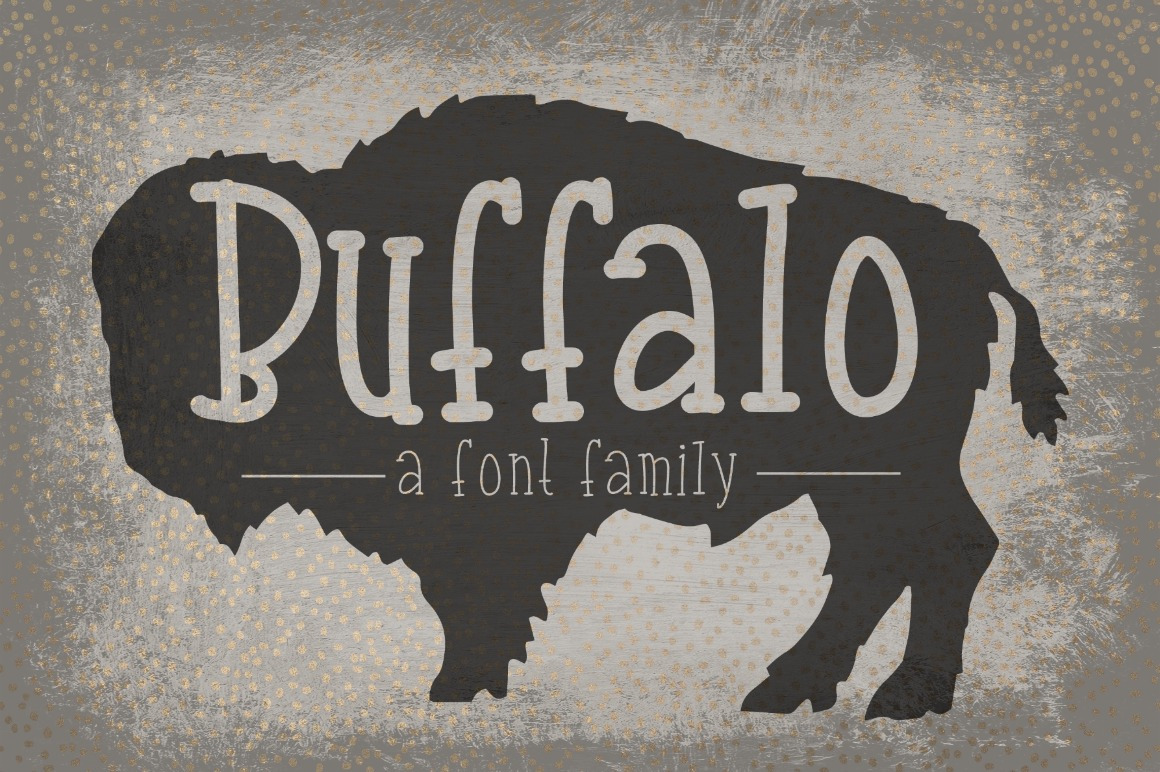
Buffalo- Font Family
This "Buffalo" font family comes in 3 different weights and is perfect for your most youthful and unique designs! It makes a great "boy font" when other handwritten styles look too feminine!